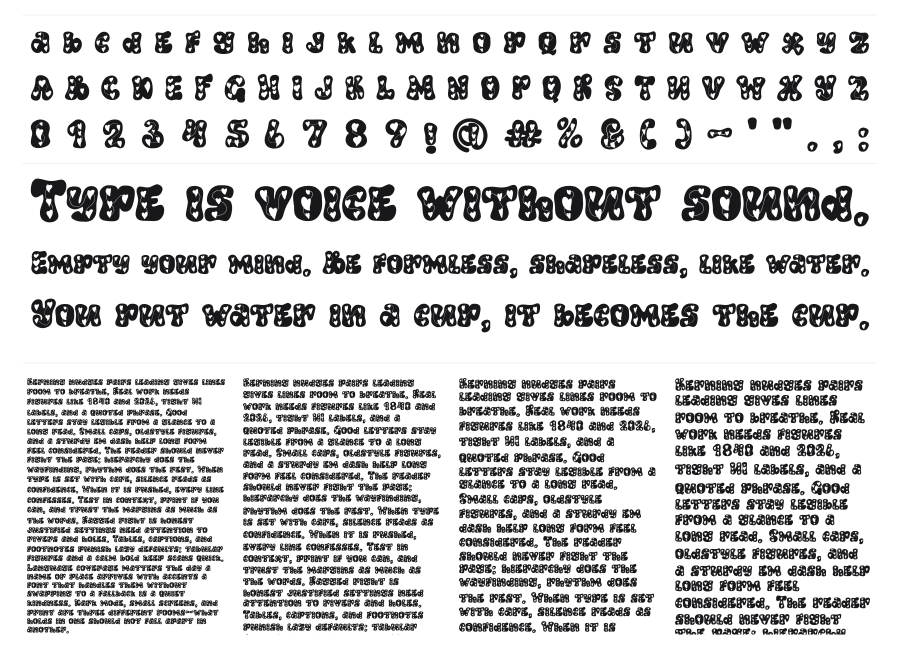
Tums Loving
Tums Loving is a puffy, groovy display font with bold rounded forms packed with a repeating heart pattern inside each character. The inflated bubble style draws from 1970s lettering traditions while the heart fill gives it an unmistakably romantic, celebratory energy. It works best large, where the interior detail can be appreciated.